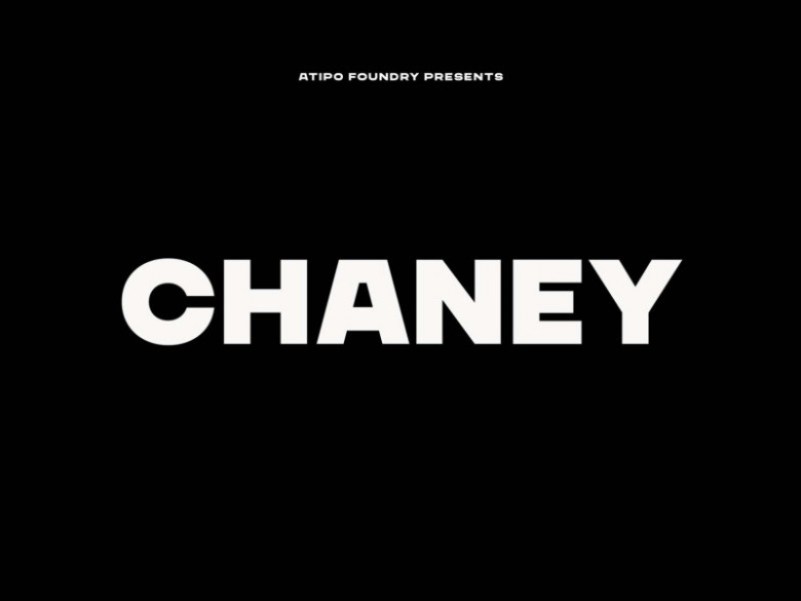
Chaney Font Family
Please note that Chaney Font must be purchased for commercial use. You are welcome to download and test this font for personal and non-commercial projects at no cost. This powerful, geometric display typeface is perfect for a highly diverse range of branding and short-text applications, including commanding logo designs, striking editorial headers, bold apparel graphics, impactful advertising campaigns, packaging design, and any creative project that requires a modern, simple, and authoritative visual presence with a dynamic character.
The reason Chaney Font is genuinely exciting is its combination of structural simplicity and vast versatility in width. Built as a geometric, caps-only sans serif, its clean monoline letters are inherently modern and efficient. Crucially, the font family offers multiple widths, allowing designers to drastically change the visual impact—from standard text to highly compressed or expanded forms—without losing the core aesthetic of the typeface. This functionality makes it a high-utility tool for creating unique, visually daring compositions.
The Chaney Font family is defined by its four key styles based on width, offering excellent flexibility: Chaney Regular, Chaney Wide, Chaney Extended, and Chaney Ultra Extended. Additionally, the family includes professional typographic features like stylistic alternates and features for precise numeric typography. For a versatile, geometric, and high-impact font solution, secure your Chaney Font Free Download today.